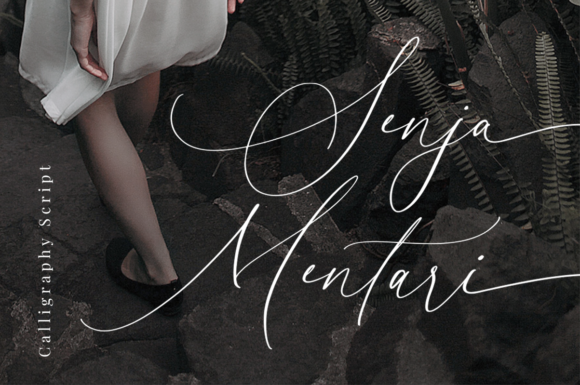
Dive into the world of Senja Mentari, a script font family that beautifully combines classic typography with a touch of modern flair. This enchanting font is the brainchild of Dharmas Studio, a renowned name in the world of digital artistry. Senja Mentari is more than just a font; it's an experience that will elevate your designs to unprecedented heights.
With its graceful curves and sweeping strokes, Senja Mentari evokes a sense of nostalgia and elegance. Whether you're crafting logos, designing invitations, or creating stunning social media graphics, this font will add a touch of sophistication and charm to your projects.
Senja Mentari is a versatile font family that caters to a wide range of design needs. From branding and headings to wedding designs and signatures, this font is a true chameleon, effortlessly adapting to any style or theme. Its versatility makes it a must-have for designers who appreciate flexibility and creativity.
But Senja Mentari is more than just a pretty face. It's also incredibly easy to use. Its clean lines and legible characters ensure that your designs will be easy to read and understand, even at small sizes. And with its extensive character set, supporting multiple languages, Senja Mentari can be used to create designs that appeal to a global audience.
So, embark on a creative journey with Senja Mentari. Let your imagination soar as you explore the boundless possibilities of this remarkable font family. Discover the magic of Senja Mentari today and transform your designs into breathtaking works of art.